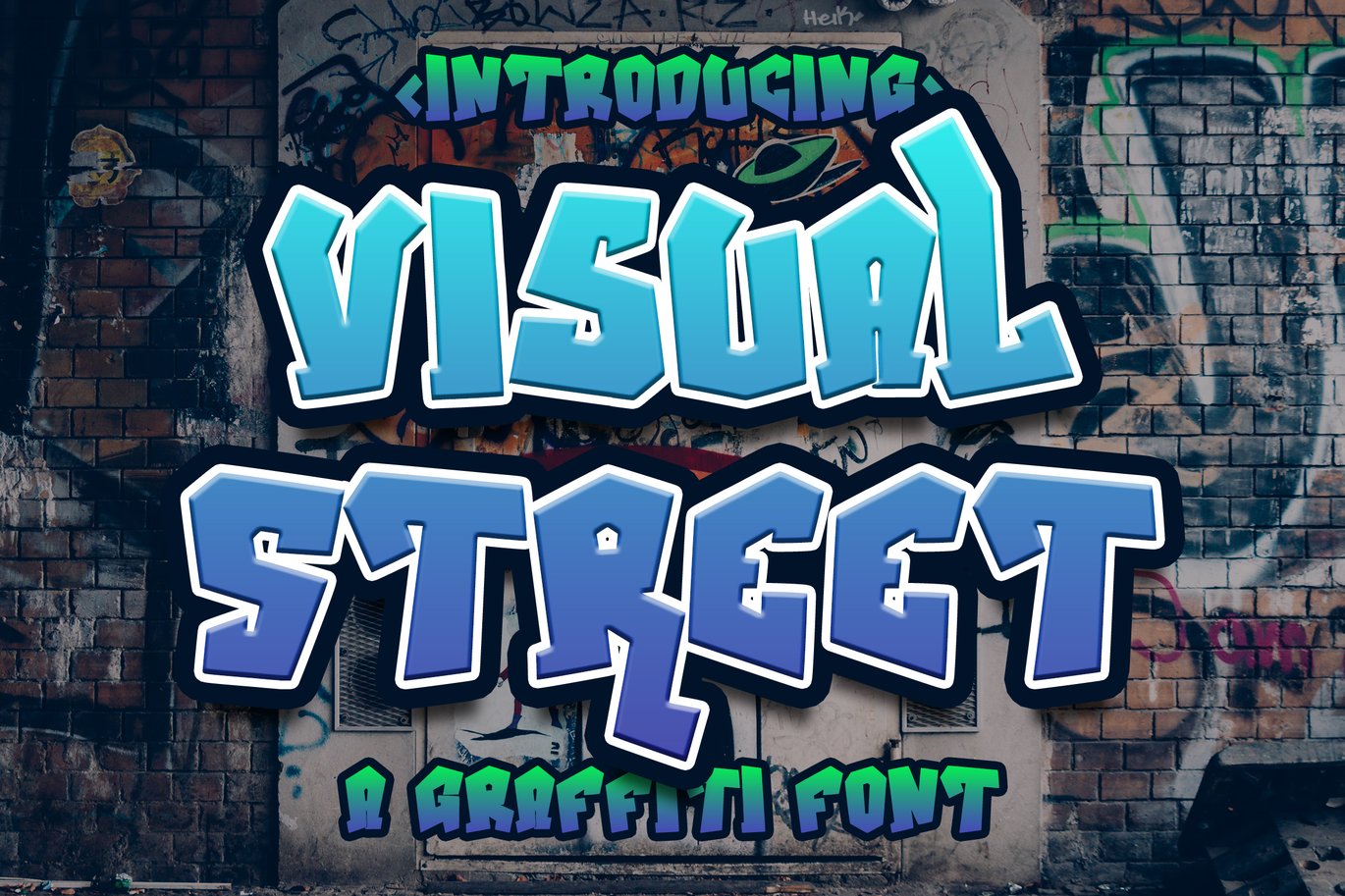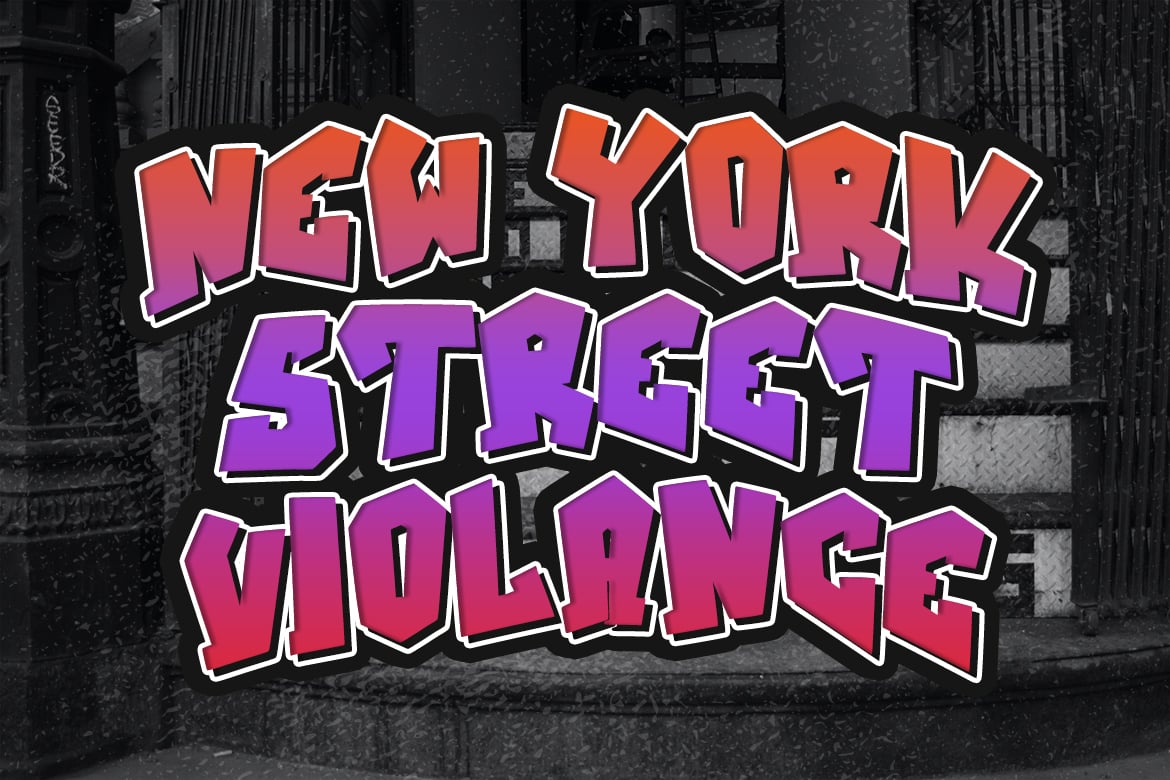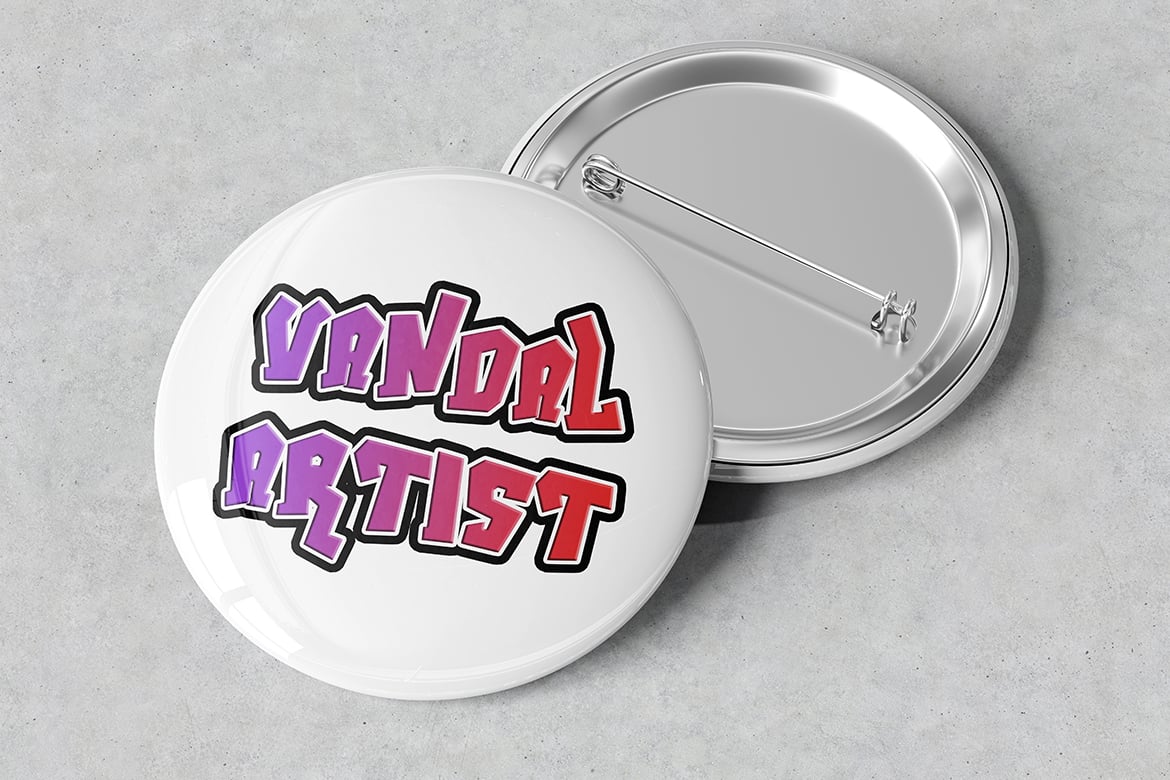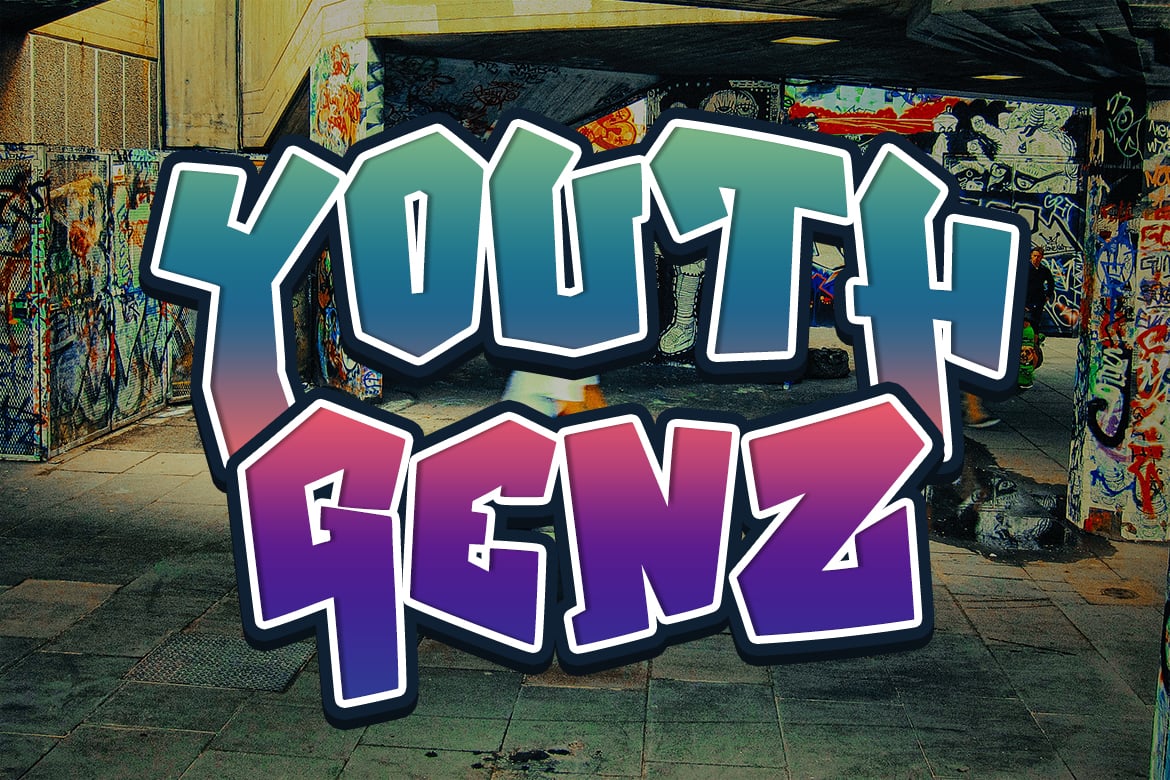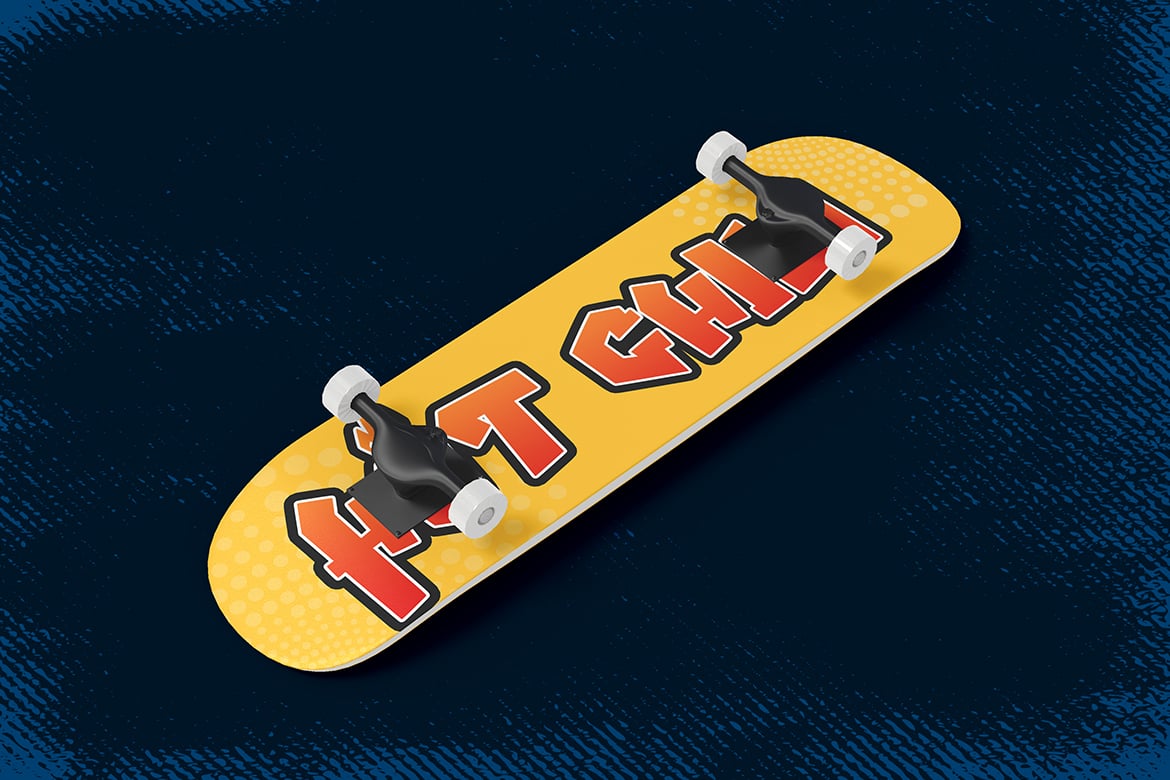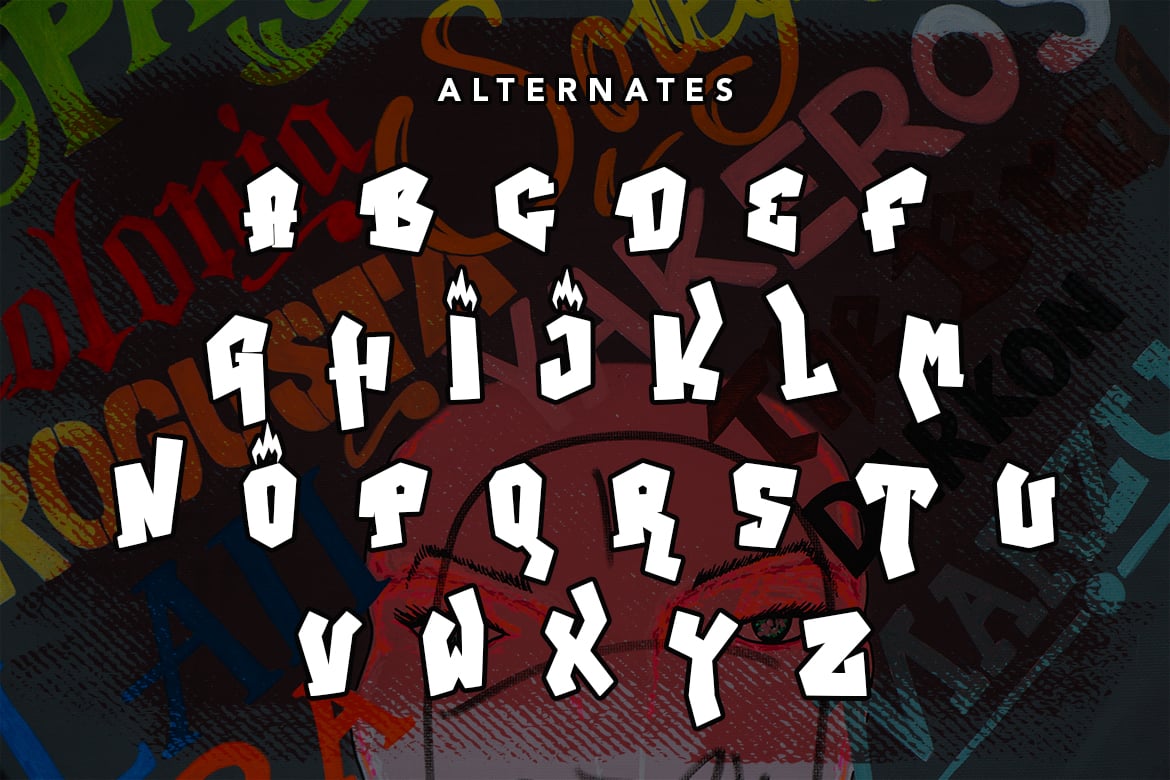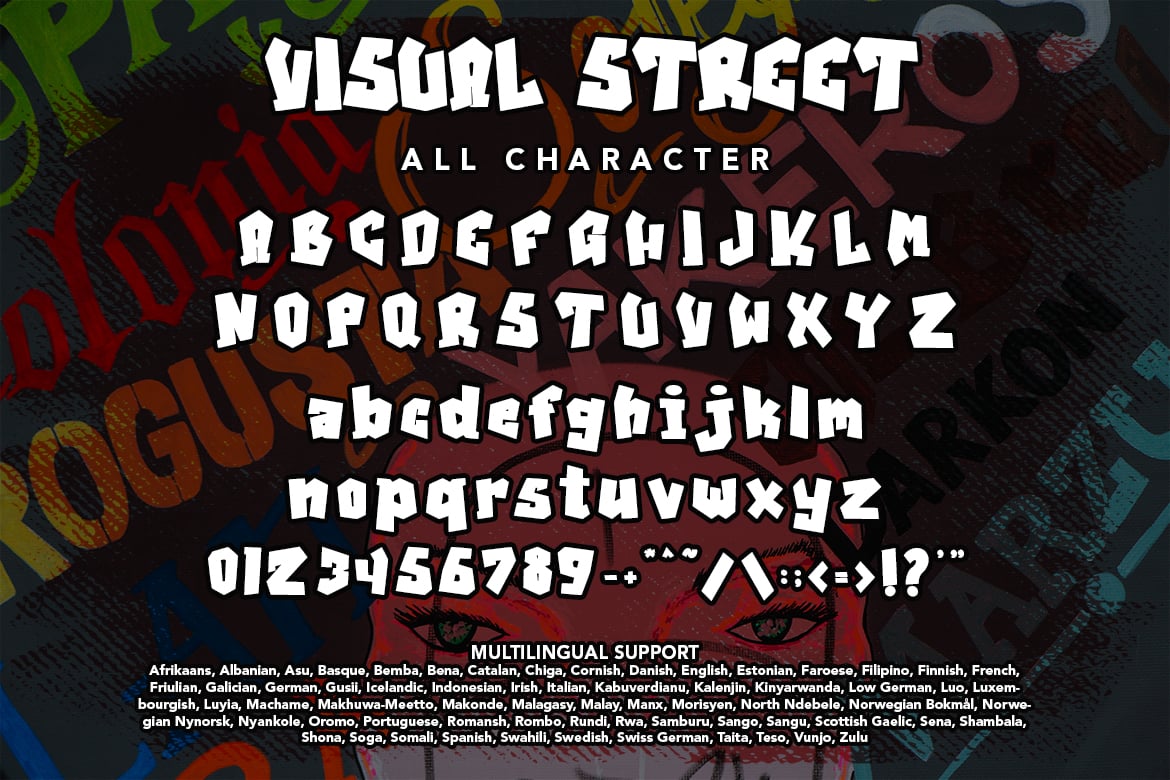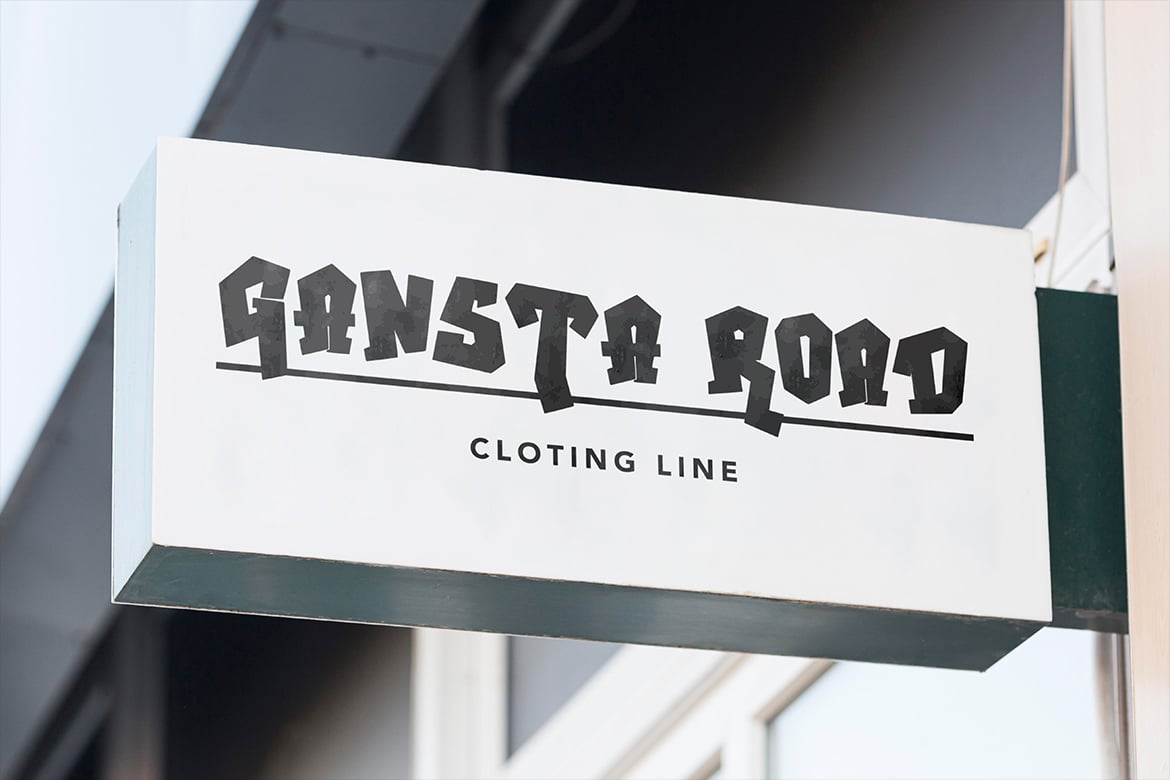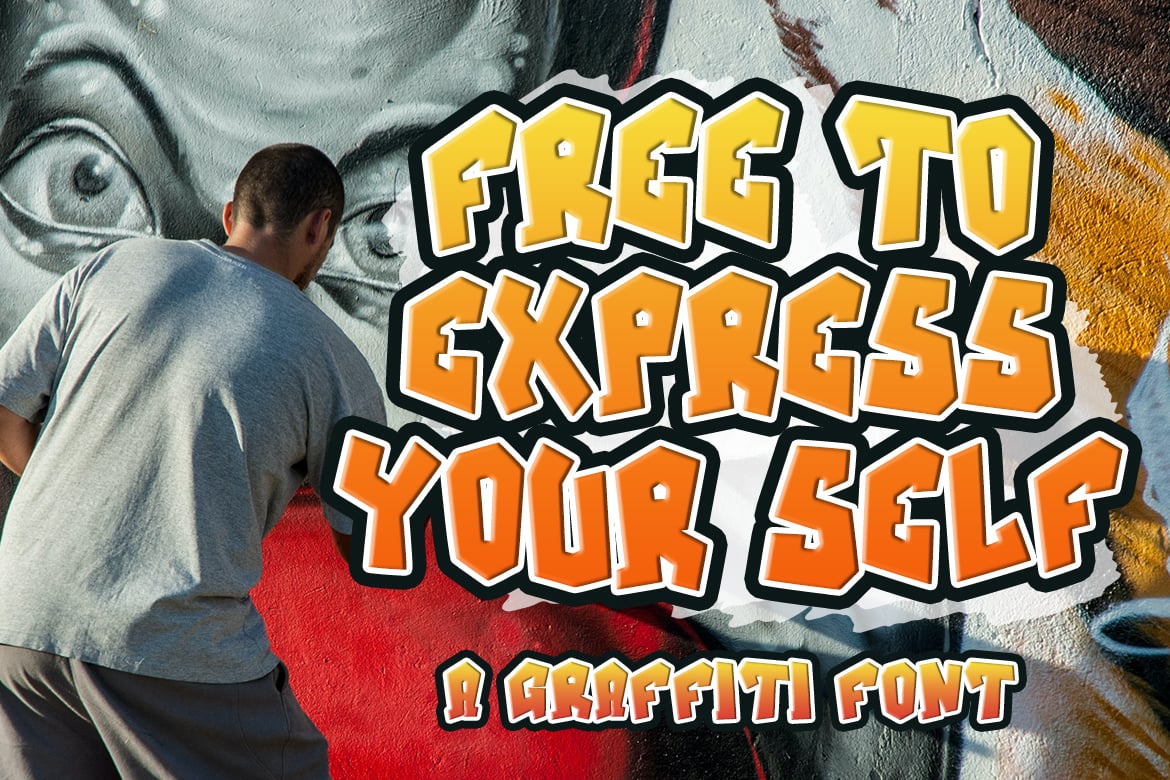
Visual Street – Graffiti Font
Visual Street – Graffiti Font is a free style font that has the characteristics of street art that shows freedom and is filled with unique characters